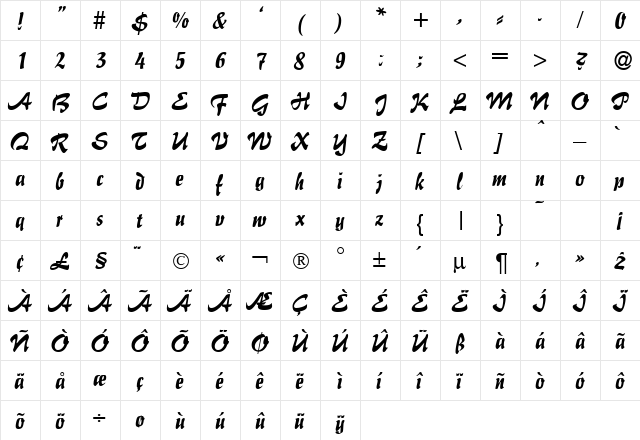
ImpactDB Normal
Design Context for ImpactDB Typeface
ImpactDB brings high-energy athletic personality to the page — its confident, muscular forms are built for impact.
Built for sports team identities, athletic apparel, event posters, and high-energy promotional material.
Font Pairing: Use alongside a condensed or geometric sans for supporting copy — keep the pairing bold, functional, and free of ornament.
Pro Tip: ImpactDB thrives on contrast — try it large, bold, and tight against a clean background for maximum visual impact.